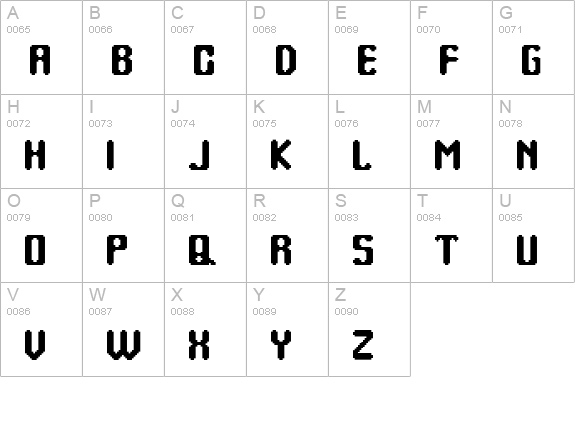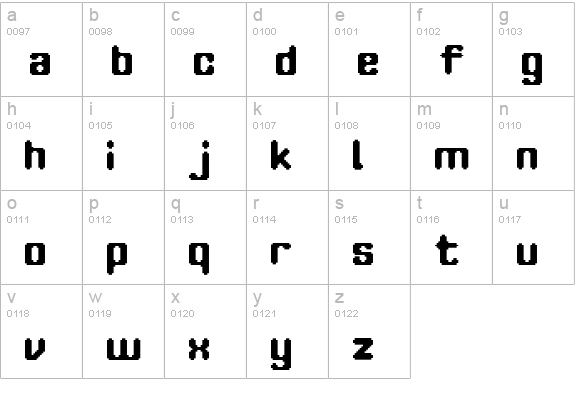
orange phone Font Details
Introducing the vibrant and modern Orange Phone font! This eye-catching typeface features a sleek design with a touch of playfulness, making it perfect for a variety of design projects. Whether you're creating posters, logos, or social media graphics, Orange Phone is sure to make your text pop. Best of all, this unique font is completely free to download at FontsMarket.com. Don't miss out on this stylish and versatile typeface - add a splash of color to your next project with Orange Phone!